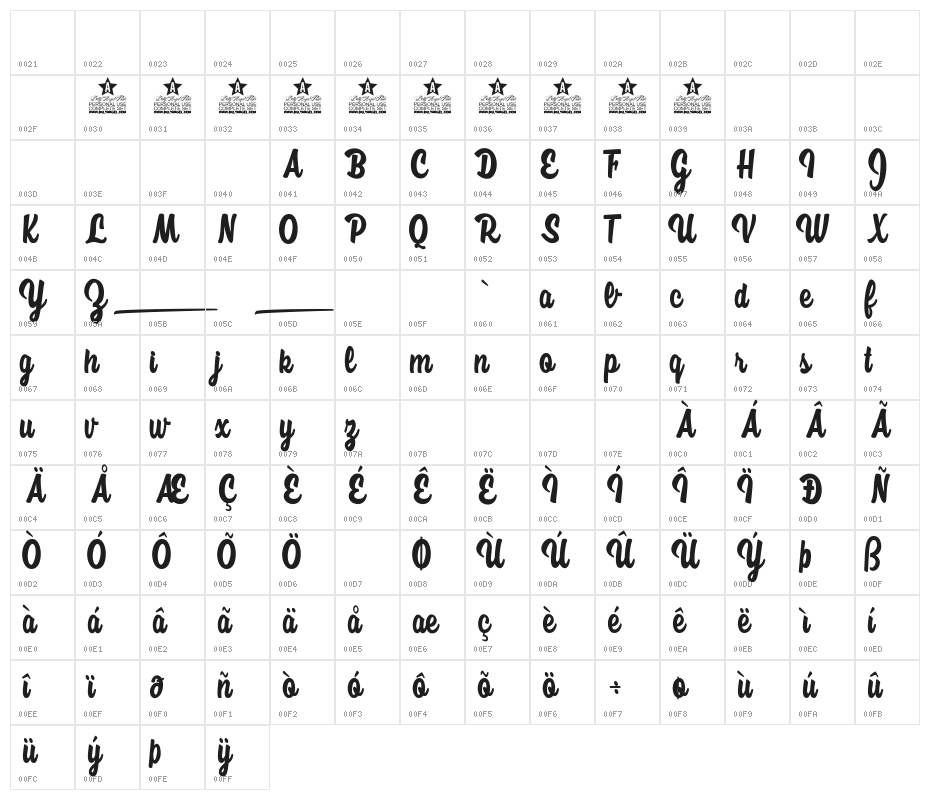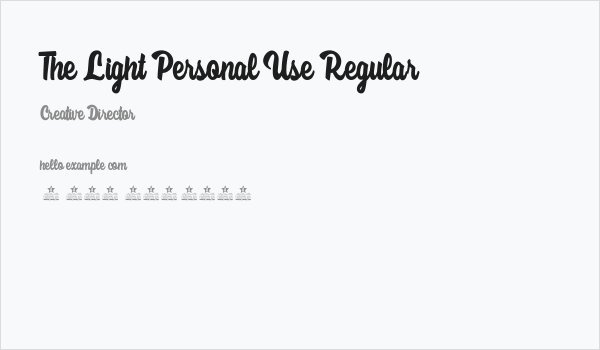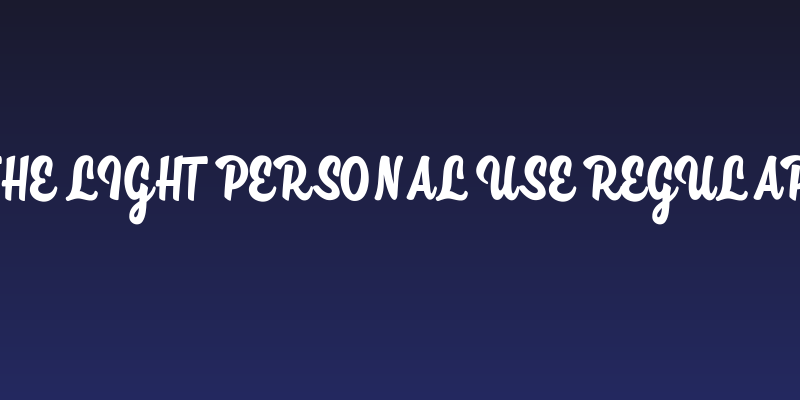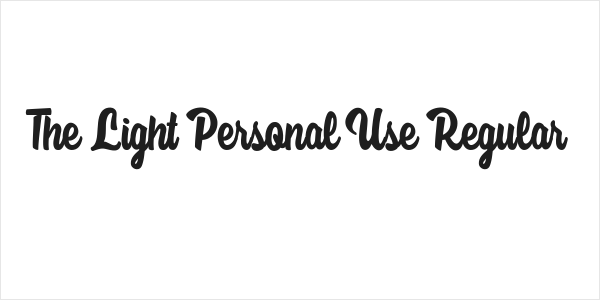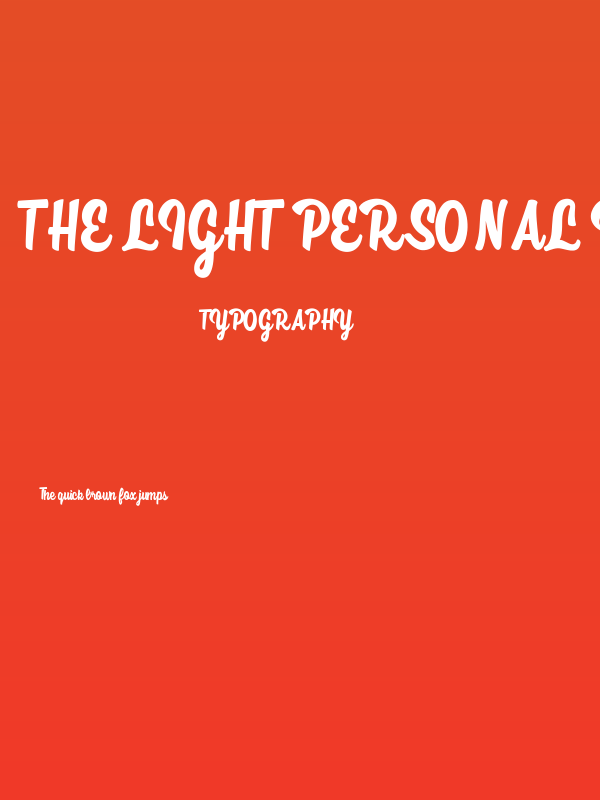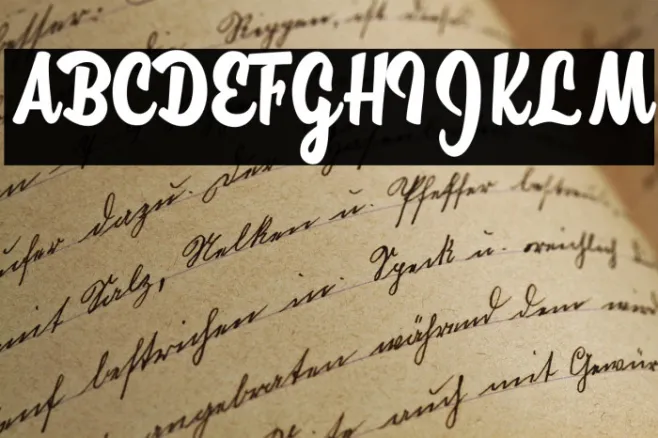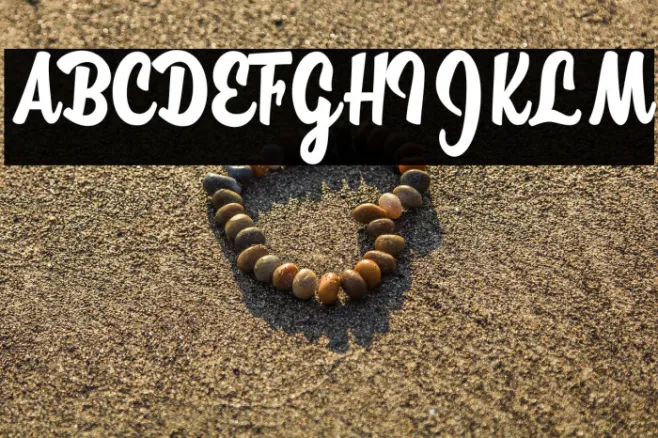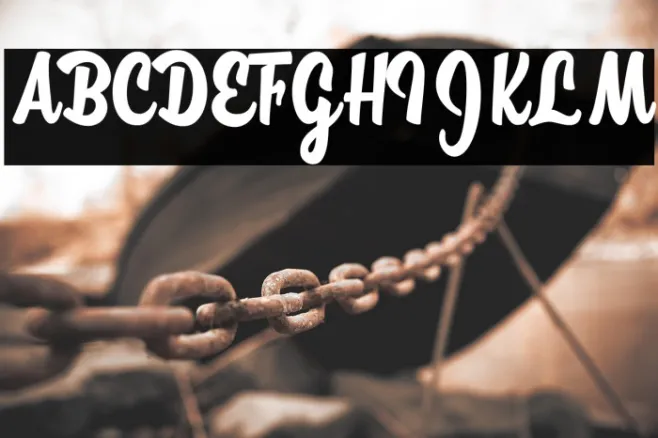
The Light Personal Use Regular Font
The Light Personal Use Regular Description
This font features a bold, cursive style with a playful and dynamic flow. The letters are interconnected, creating a sense of continuity and movement. The uppercase letters are slightly larger and more pronounced, while the lowercase letters maintain a consistent height, adding to the overall harmony of the design. The strokes are thick and rounded, giving the font a friendly and approachable appearance. The special characters are integrated seamlessly, maintaining the same stylistic elements as the alphabet. This font is ideal for projects that require a personal touch or a sense of creativity.